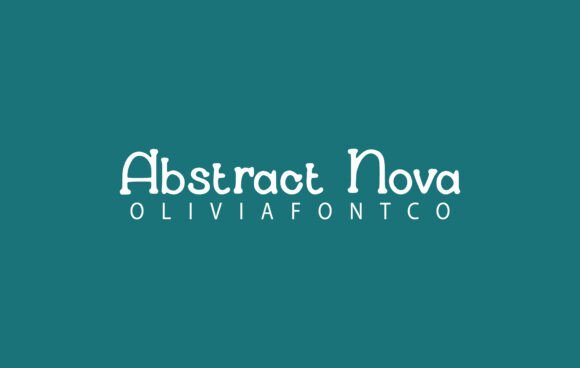
The Quest for the Perfect Font: Discovering Abstract Nova
Ah, the eternal struggle of finding the perfect font for our design projects! I still remember the time I was working on a wedding invitation design, and my client asked for a romantic, yet elegant feel. I scoured the internet, tried out countless fonts, but none seemed to capture the essence of what I was looking for. That was until I stumbled upon Abstract Nova font – an authentic handwritten font with a romantic touch that has since become a staple in my design toolkit.
An Honest Review of Abstract Nova Font
• ✨ Legibility: This font is incredibly easy to read, making it perfect for both title and body text.
• ✅ Romantic touch: The handwritten feel of Abstract Nova adds a touch of elegance and sophistication to any design.
• 💫 Versatility: Whether you’re designing magazine headlines, social media graphics, branding materials, or wedding invitations, this font fits right in.
Of course, no font is perfect, and Abstract Nova has a few minor quirks:
• 🤔 Limited multilingual support: While Abstract Nova covers the basics, it might not support every language or character set.
• ⚠️ Occasional kerning issues: As with any font, you might need to adjust kerning for optimal results, especially when using all caps or large text sizes.
The Story Behind Abstract Nova Font
Abstract Nova was designed with love and care by a team of typographers who aimed to create a font that captures the essence of romance and elegance. Inspired by classic calligraphy and modern digital design, Abstract Nova brings a fresh yet timeless feel to the world of typography.
Is Abstract Nova suitable for body text? Yes, Abstract Nova is legible and can be used for both title and body text, making it versatile for various design projects.
Does Abstract Nova support OpenType features? Yes, Abstract Nova supports OpenType features such as ligatures, stylistic alternates, and glyphs, which can enhance your design.
Is Abstract Nova available in different weights or styles? Abstract Nova comes in a single weight, but its versatility and range of OpenType features make it adaptable for various design needs.